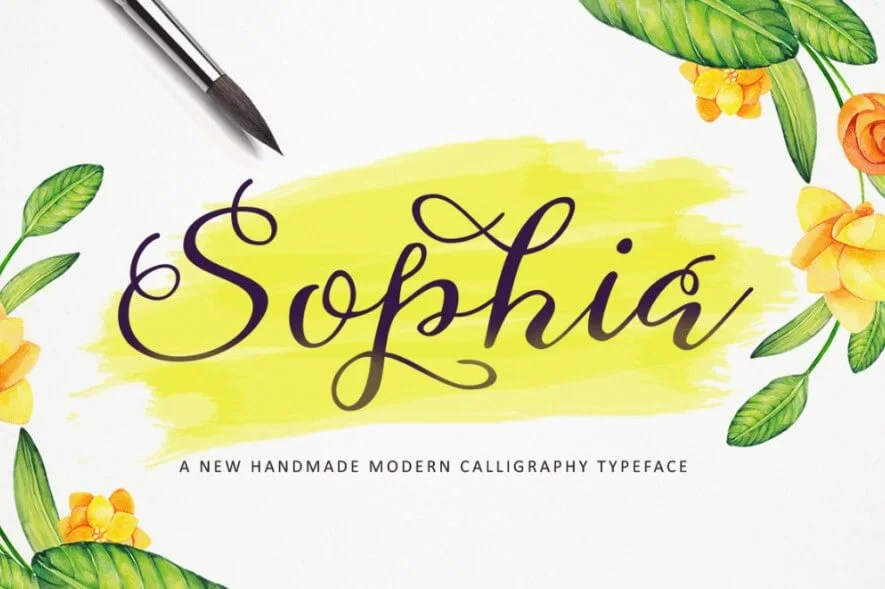
Sophia Font Free Download
About Sophia Font
Sophia Font is a lively and expressive typeface that blends modern handwritten and decorative elements to create a distinctive visual style. Its flowing strokes and organic character shapes make it suitable for creative design projects such as invitations, posters, branding, and social media graphics. The font offers a friendly and artistic feel, lending personality and warmth to both digital and print work. With its balanced letterforms and readable style, Sophia enhances headlines and display text with a handcrafted touch that stands out.